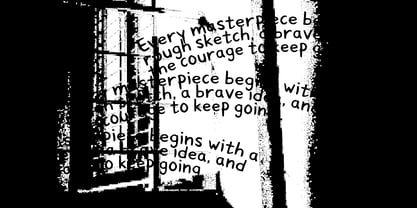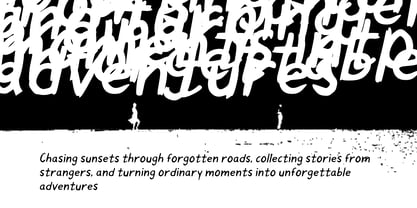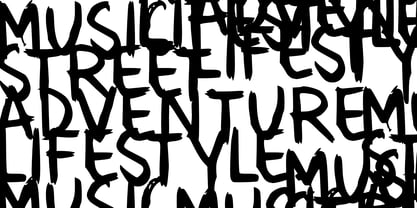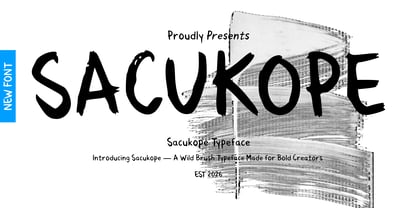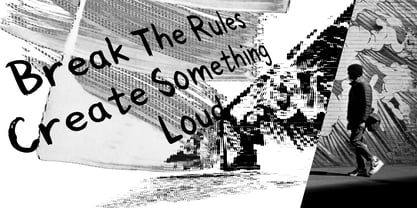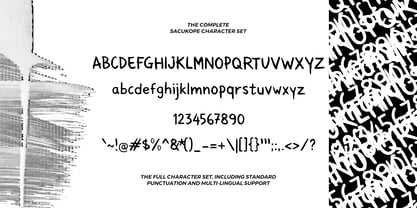
Sacukope
by Mei Suseno
The Sacukope Font Family was designed by Wahyu Eka Prasetya, Mei Suseno and published by Mei Suseno. Sacukope contains 2 styles and family package options. More about this family
Sacukope is a bold hand-painted brush font crafted to bring energy, personality, and artistic expression into your designs. Inspired by raw brush strokes and authentic handwritten lettering, this typeface delivers a natural, dynamic look that feels both modern and rebellious.
With its rough edges, organic shapes, and expressive character, Sacukope is perfect for branding projects, streetwear designs, music posters, album covers, social media graphics, packaging, quotes, logos, and any creative work that demands attention. Whether you're creating a bold headline or a standout visual identity, Sacukope adds a unique handcrafted touch that makes every word feel alive.
Designed to be versatile and eye-catching, Sacukope works beautifully in both digital and print applications, helping your projects stand out with confidence and style.
Perfect For:
• Branding & Logos
• Streetwear & Fashion
• Music & Festival Posters
• Social Media Content
• Packaging Design
• Creative Headlines
• YouTube Thumbnails
• Album Covers
• Adventure & Lifestyle Projects
• Handcrafted Design Concepts
Designers: Wahyu Eka Prasetya, Mei Suseno
Foundry: Mei Suseno